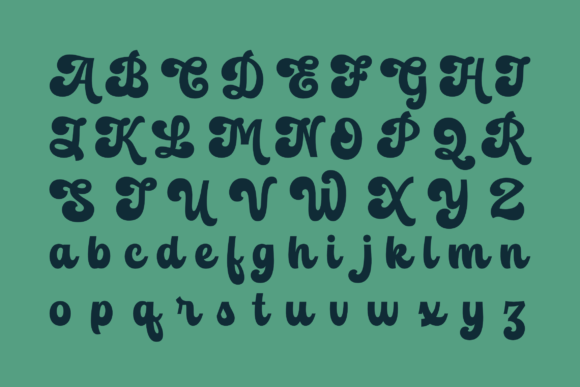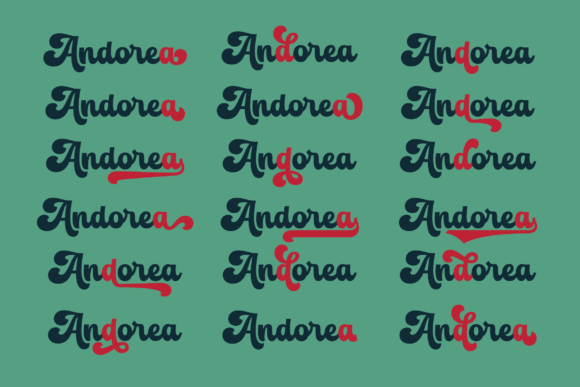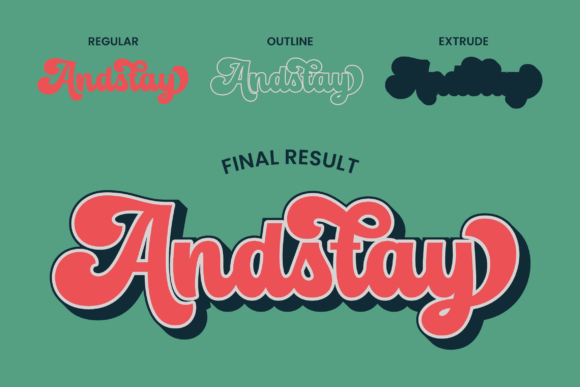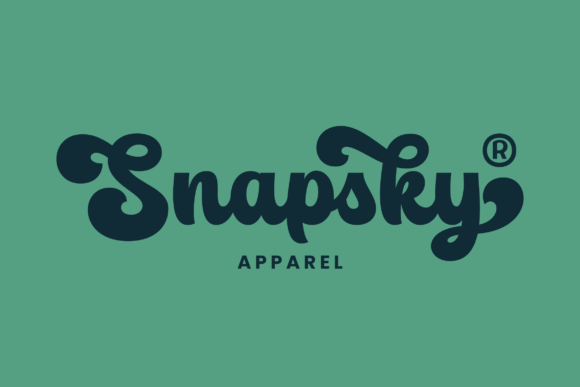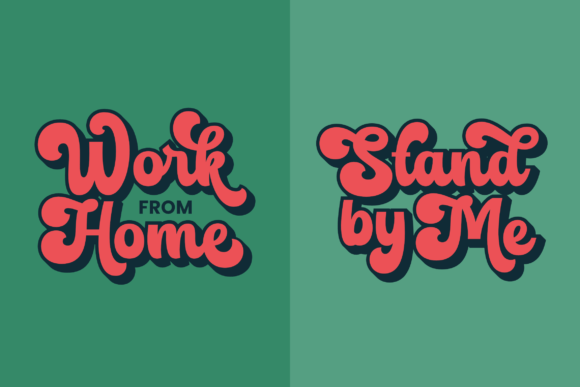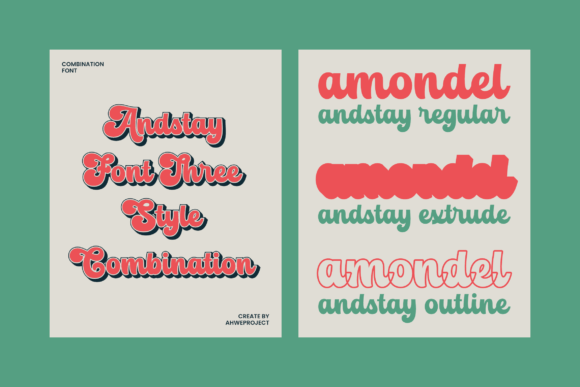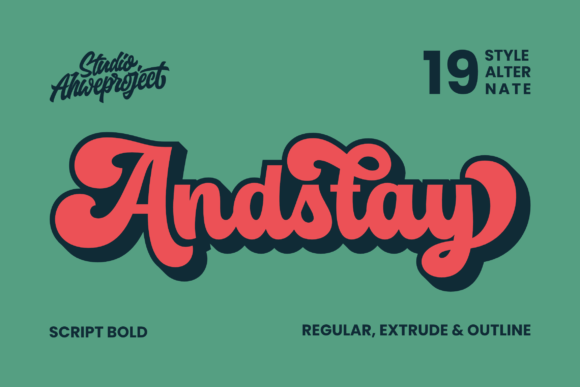
Introducing Andstay Font: A Bold and Retro-Styled Handwritten Font
Are you looking for a font that can add a touch of nostalgia and personality to your designs? Look no further than Andstay Font, a bold and retro-styled handwritten font that’s perfect for designers and crafters who want to create eye-catching and memorable designs. In this article, we’ll take a closer look at Andstay Font, its features, and how you can use it to elevate your designs.
A Strong and Confident Font
Andstay Font is a bold and confident font that’s designed to make a statement. Its retro-styled handwritten aesthetic gives it a unique and nostalgic feel that’s perfect for vintage-inspired posters, stickers, apparel, and social media posts. With Andstay Font, you can add a touch of personality and whimsy to your designs, making them stand out from the crowd.
Key Features of Andstay Font
- Bold and Retro-Styled: Andstay Font has a bold and retro-styled aesthetic that’s perfect for creating eye-catching designs.
- Handwritten: This font has a handwritten feel that’s perfect for adding a touch of personality and whimsy to your designs.
- Dynamic and Confident: This font reads as strong, confident, and dynamic, making it perfect for designers who want to create bold and memorable designs.
Uses for Andstay Font
Andstay Font is a versatile font that can be used for a variety of design projects, including:
- Vintage-Inspired Posters: Add a touch of nostalgia and personality to your posters with Andstay Font.
- Stickers: Create eye-catching stickers that stand out from the crowd with Andstay Font.
- Apparel: Add a touch of personality and whimsy to your apparel designs with Andstay Font.
- Social Media Posts: Create memorable and engaging social media posts with Andstay Font.
Why Choose Andstay Font?
There are many fonts available that offer a similar aesthetic to Andstay Font, but here are a few reasons why Andstay Font stands out:
- Unique Aesthetic: Andstay Font has a unique and nostalgic aesthetic that’s perfect for designers who want to create bold and memorable designs.
- High-Quality Design: Andstay Font is designed to be high-quality and legible, making it perfect for a variety of design projects.
Tips for Using Andstay Font
Here are a few tips for using Andstay Font in your designs:
- Experiment with Different Sizes: Andstay Font looks great in a variety of sizes, so experiment with different sizes to find the one that works best for your design.
- Pair with Other Fonts: Andstay Font pairs well with other fonts, so try pairing it with a sans-serif font for a bold and memorable design.
- Use Swashes and Glyphs: Andstay Font comes with a variety of swashes and glyphs, so be sure to use them to add personality and whimsy to your designs.
Andstay Font is a bold and retro-styled handwritten font that’s perfect for designers and crafters who want to create eye-catching and memorable designs. With its unique aesthetic, ease of use, and high-quality design, Andstay Font is a great choice for a variety of design projects. Whether you’re creating vintage-inspired posters, stickers, apparel, or social media posts, Andstay Font is sure to impress your audience.